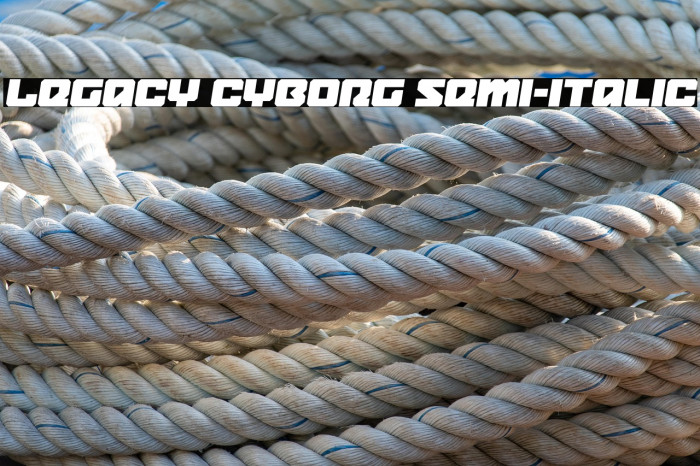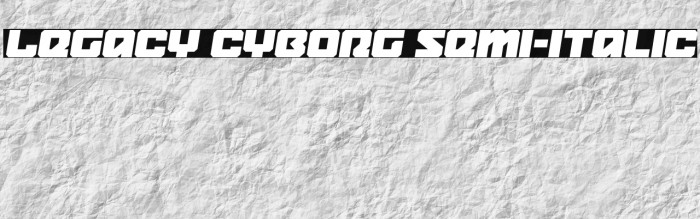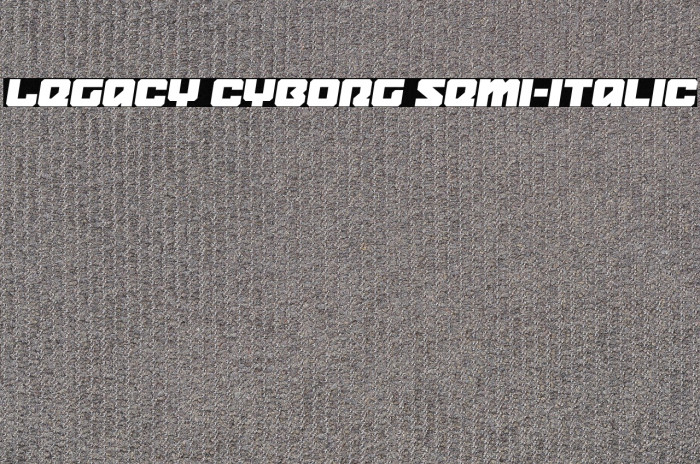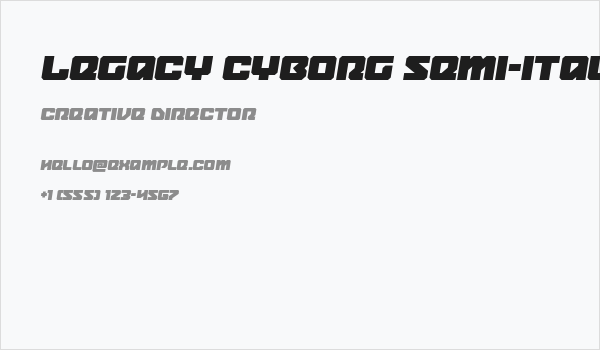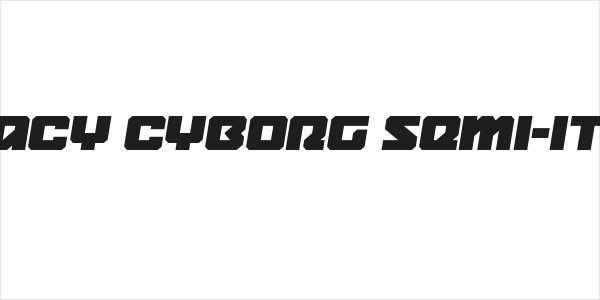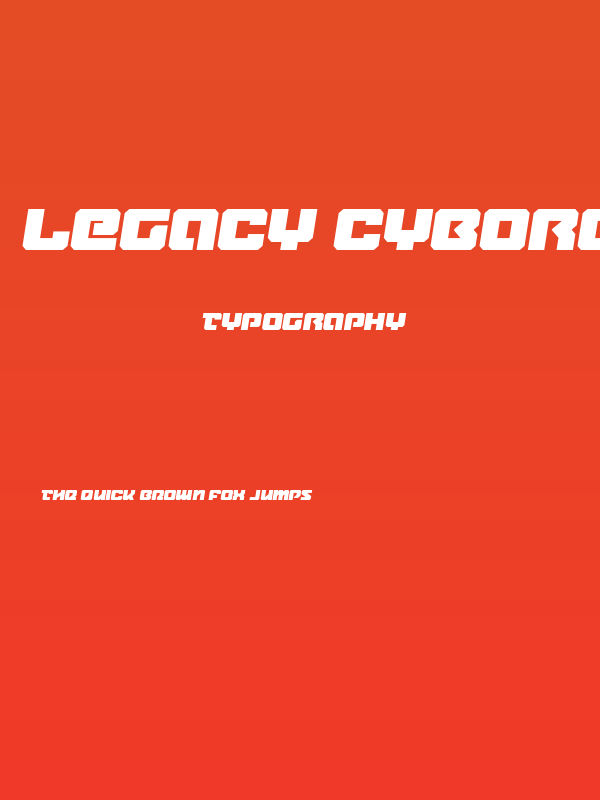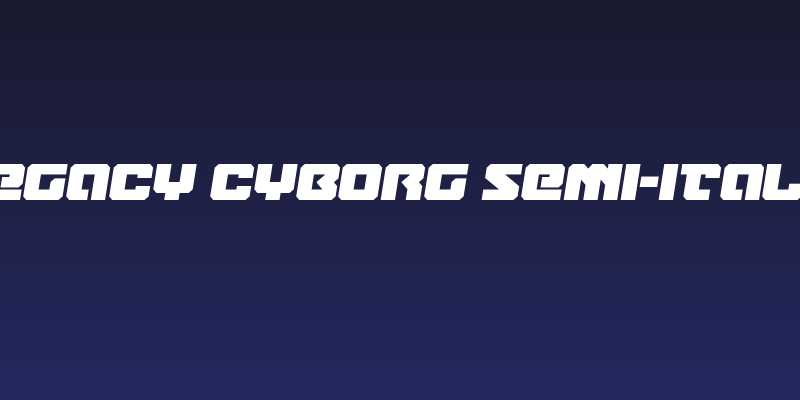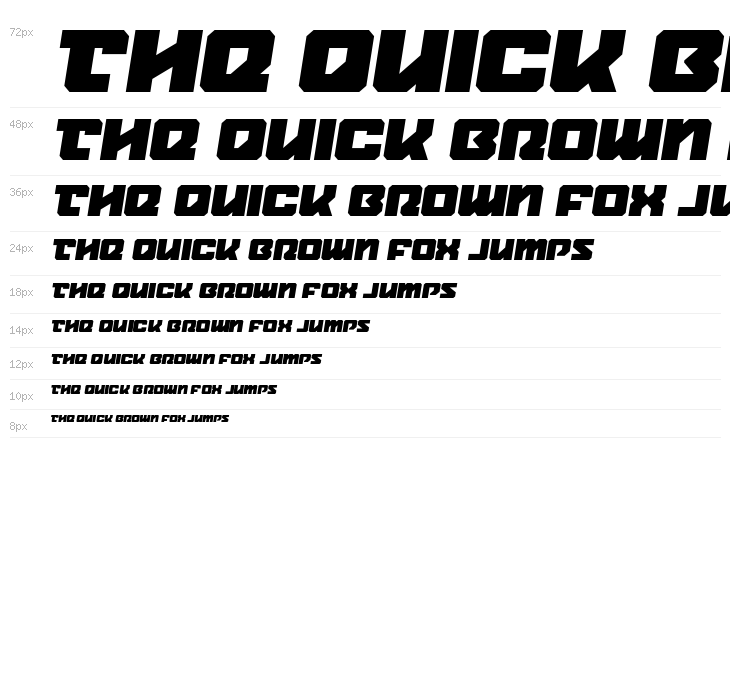
Legacy Cyborg Semi-Italic Font
Legacy Cyborg Semi-Italic Description
This font features a futuristic and bold design with a semi-italic slant, giving it a dynamic and forward-moving appearance. The characters are blocky and geometric, with sharp angles and a consistent stroke width that conveys a sense of strength and modernity. The uppercase and lowercase letters maintain a uniform style, enhancing readability while still offering a unique aesthetic. The numerals and special characters are designed to match the overall theme, ensuring cohesion across all text elements. This font is ideal for projects that require a strong visual impact and a modern, tech-inspired look.
| Proposed Projects | Ideal for technology branding, sci-fi themed designs, video game interfaces, and modern posters. |